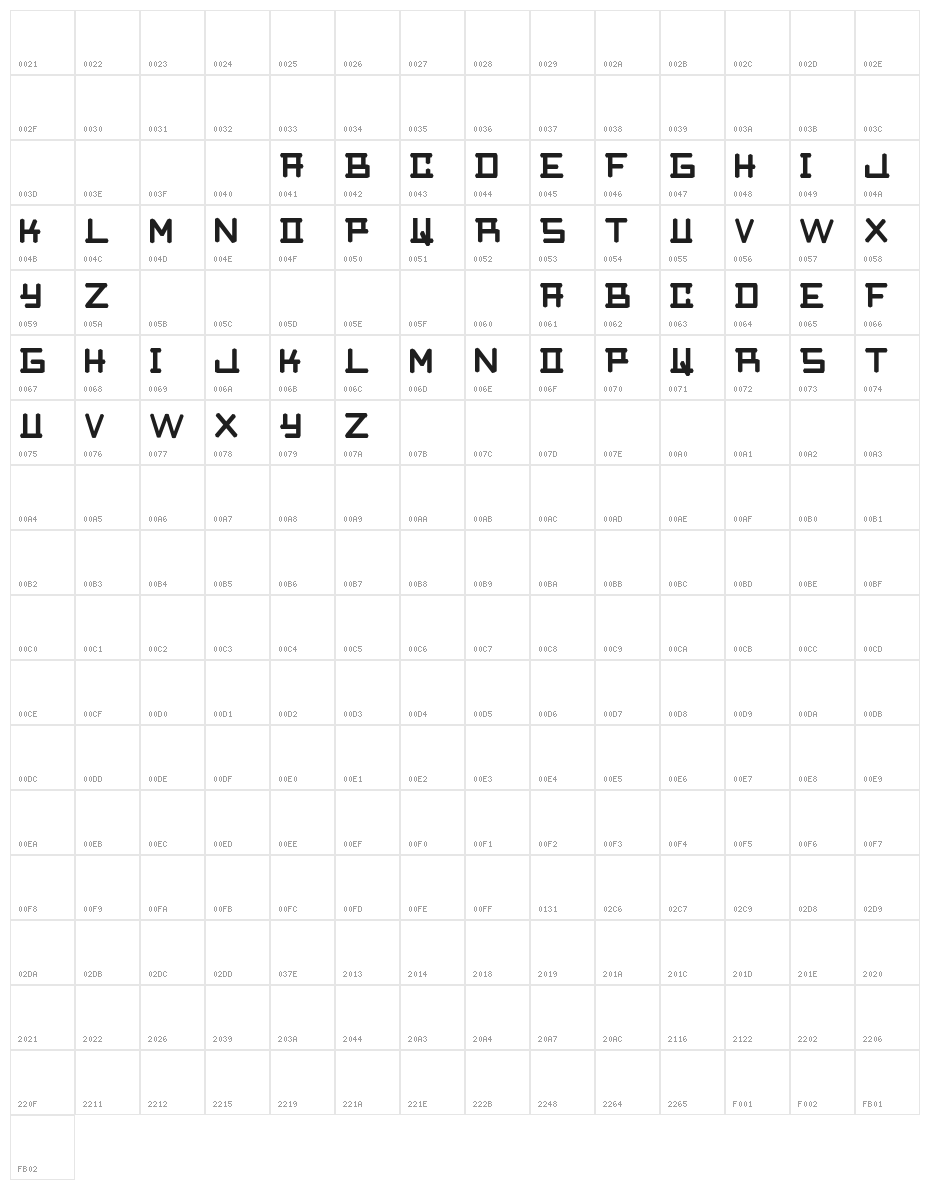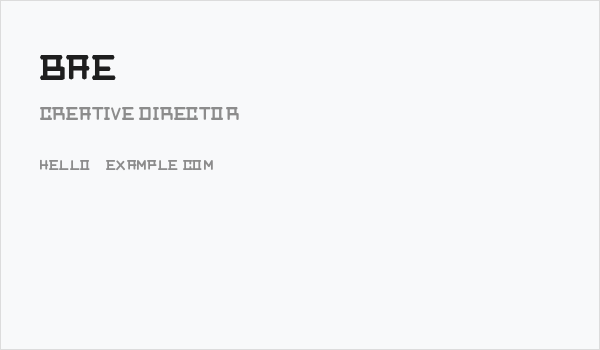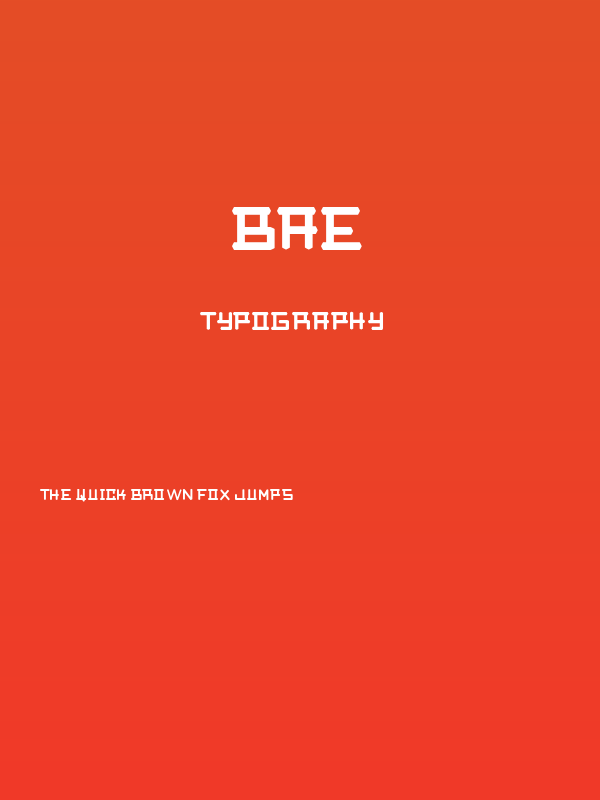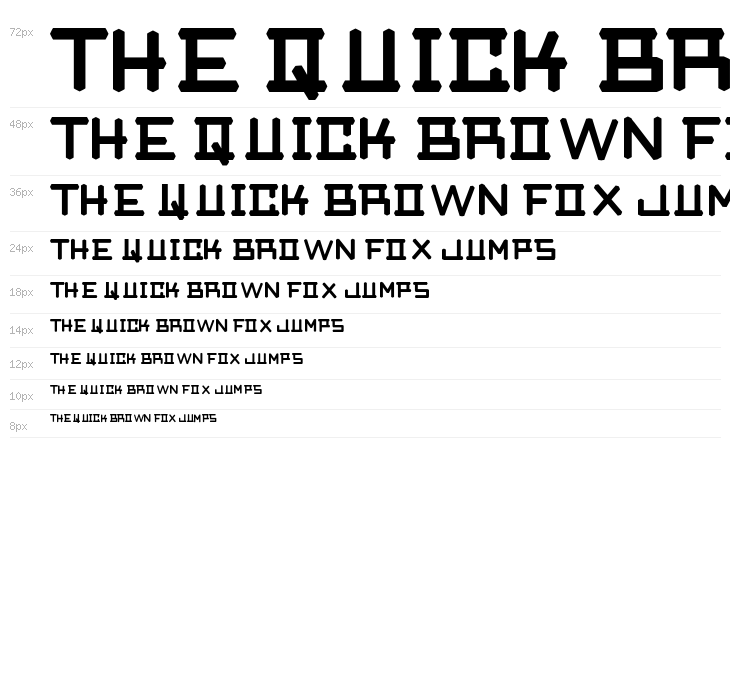
Bae Font
Bae Description
This font features a bold, geometric design with a modern and technical aesthetic. The characters are constructed with uniform stroke widths, creating a monospaced appearance. Each letter is defined by sharp angles and straight lines, giving it a futuristic and digital feel. The uppercase letters are consistent in height and width, while the lowercase letters maintain a similar structure, ensuring readability and uniformity. The numbers and special characters follow the same design principles, making them easily distinguishable. This font is ideal for projects that require a clean, structured look with a touch of modernity.
| Use Case | Logos, Headlines, Digital interfaces |
| Proposed Projects | Ideal for tech branding, digital interfaces, coding environments, and modern posters. |